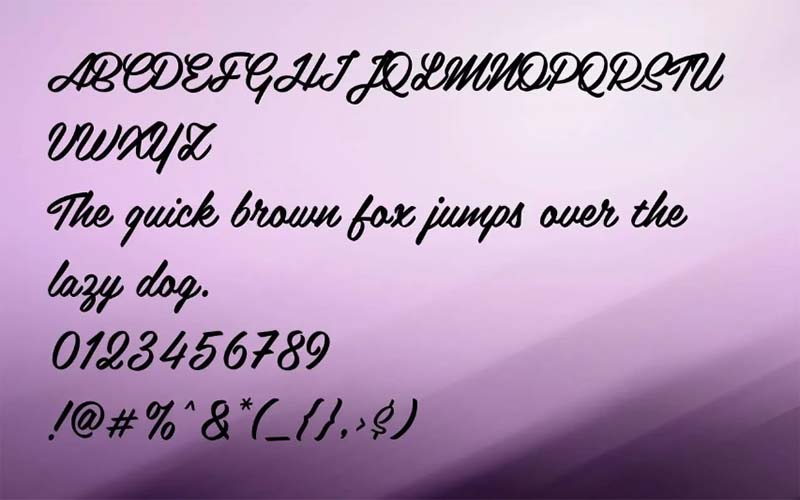
Belinda font is an elegant, cursive, and luxurious script typeface. The most stylish typeface was created by Mr. Letters who is the primary designer of Belinda.
Later, a few styles and weights were added to this luxury font by this Indonesian designer. Those changes made it more precious.
This modern typeface is perfect for both small and large sizes. Many designers adopted this cursive and fashionable font for their worthwhile projects.
Belinda Font
This clean font is suitable for branding projects, product packaging, stylish text, background images, home-ware designs, magazines, newspaper headings, and many more.
The very versatile font supports 2 styles such as the Belinda Regular and Belinda Italic Font styles with multilingual support. This regular font contains 189 hand-drawn characters.
These defined characters are included in uppercase, lowercase letters, a few numbers, currency symbols, basic punctuation marks, updated icons, and some special characters.
Another great aspect of this font is, that it supports up to 80 different international languages. That makes it easy to understand all over the world.